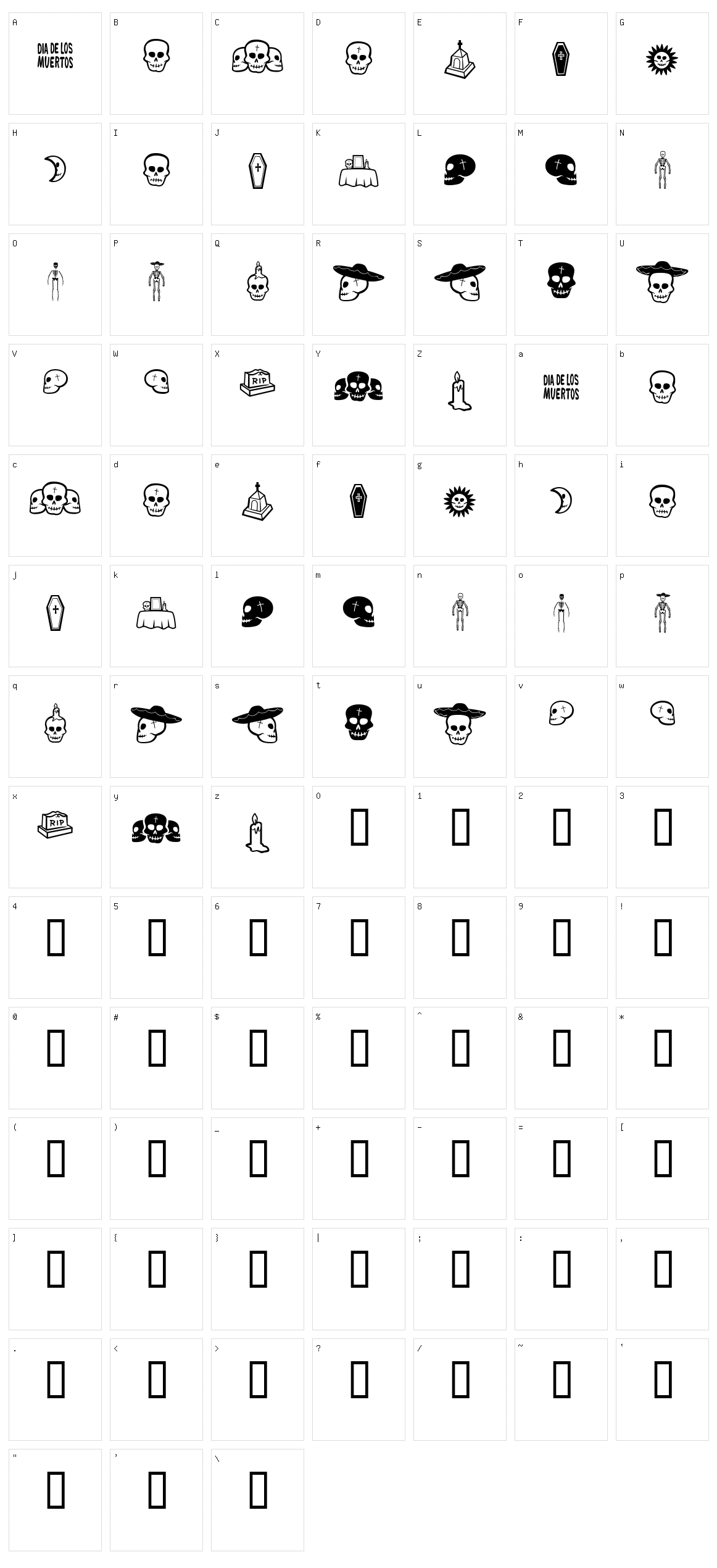
The free font D?a de los muertos is carefully designed by Jess Latham, showcasing a thoughtful balance of creativity and usability and falls under the Halloween font style. When you download the ZIP file, it contains only 18.88 KB of font files, making it lightweight and quick to download. Please review the license details below to understand permitted usage and distribution rights. If license information is not available, we recommend using this font for personal projects only or contacting the author directly for commercial usage permissions.